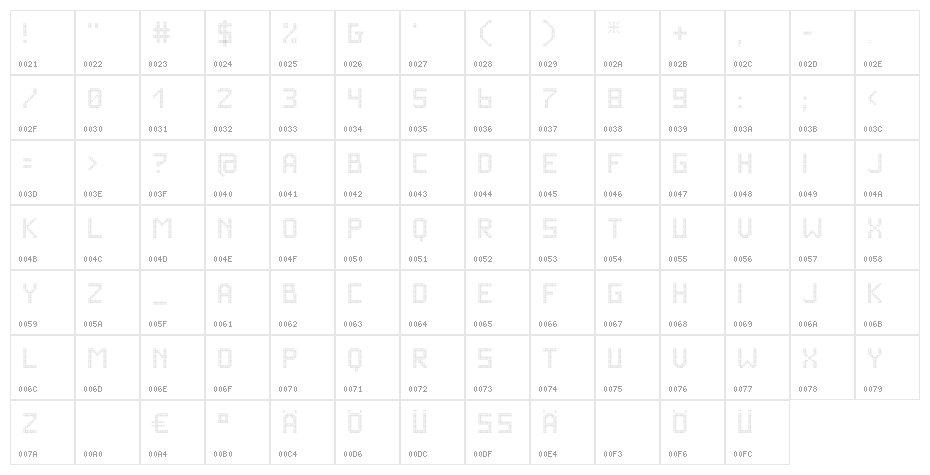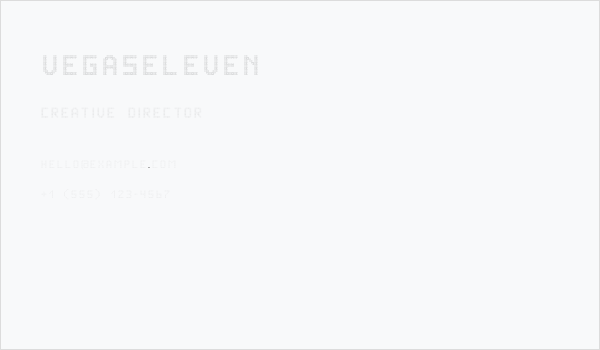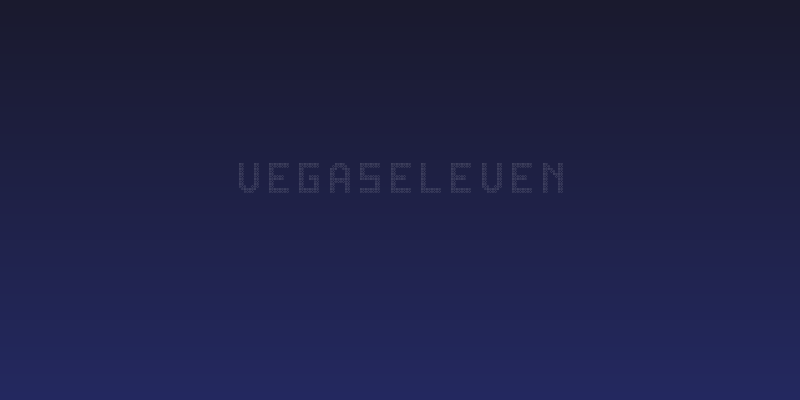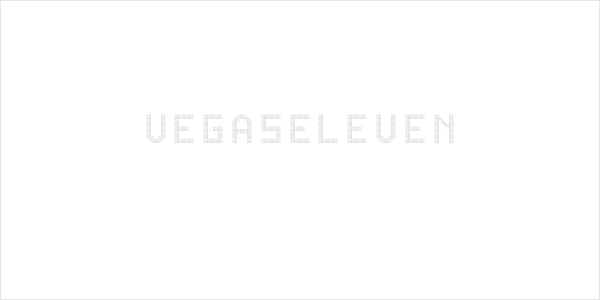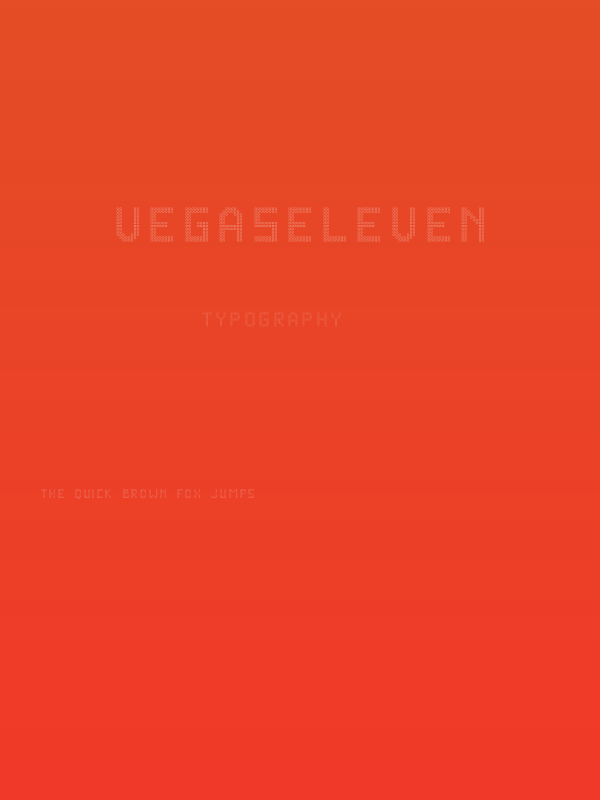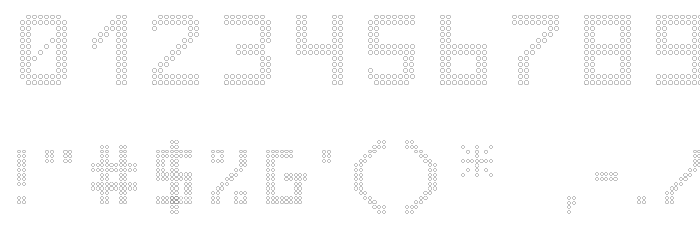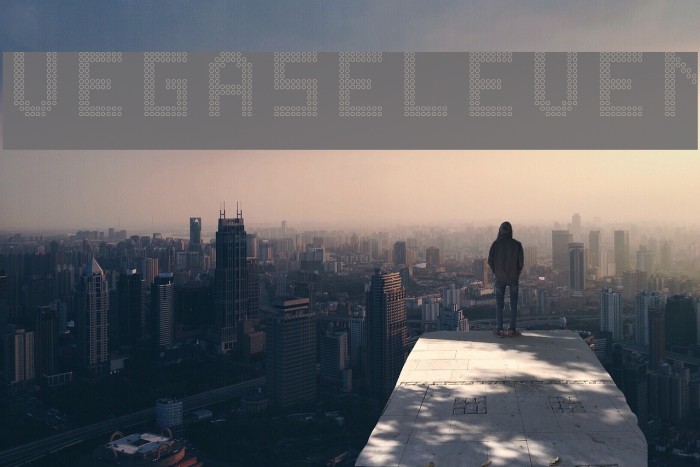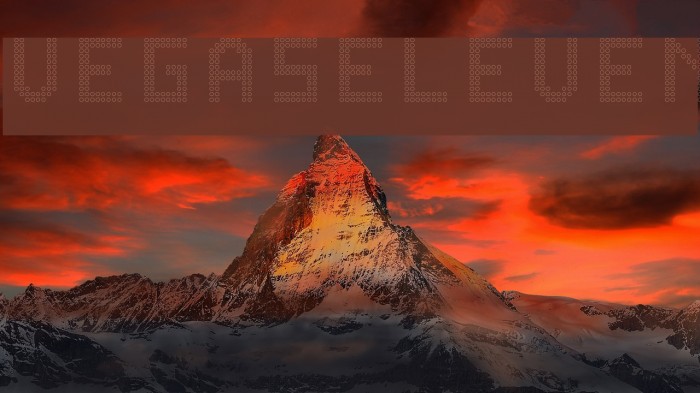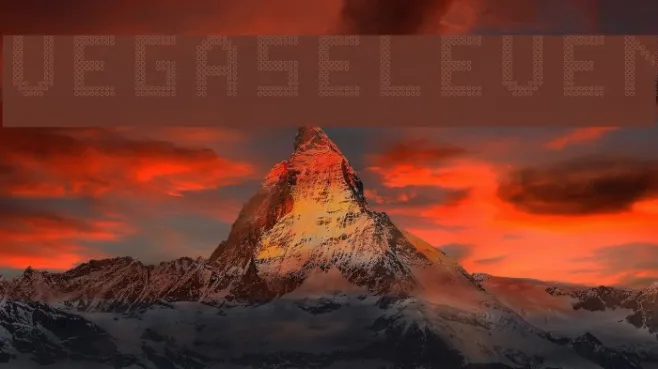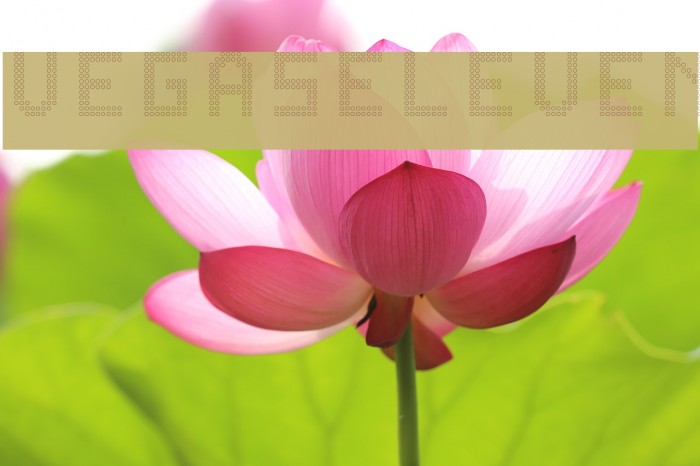
VegasELEVEN Font
VegasELEVEN Description
This font features a unique design composed of small, evenly spaced dots forming each character. The geometric arrangement creates a modern, digital aesthetic reminiscent of LED displays or dot matrix printers. The uppercase and lowercase letters maintain a consistent style, with a clear and structured appearance. Numbers and special characters follow the same dot pattern, ensuring uniformity across all glyphs. This font's distinct style makes it suitable for projects that require a futuristic or tech-inspired look.
| Proposed Projects | Ideal for digital displays, tech-themed posters, futuristic branding, and electronic music album covers. |